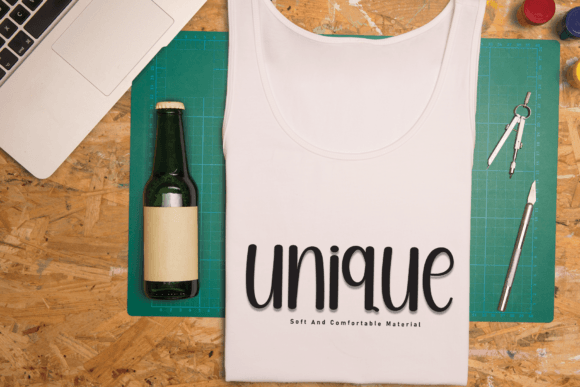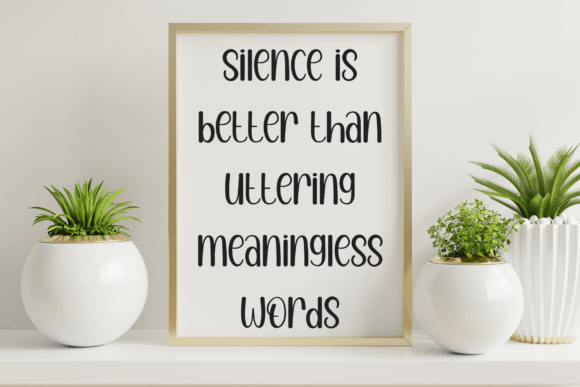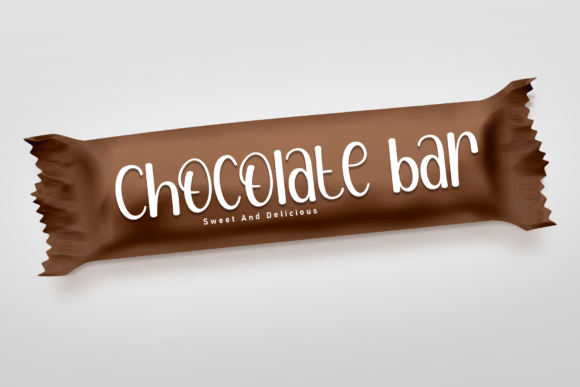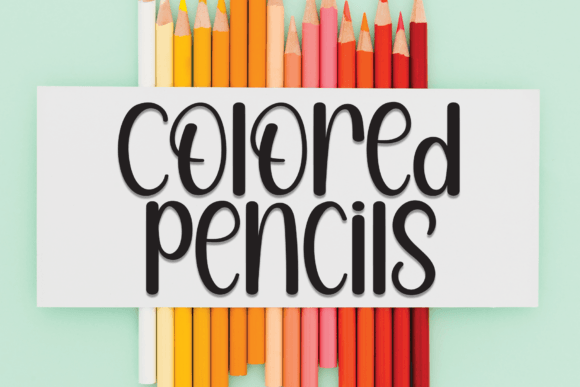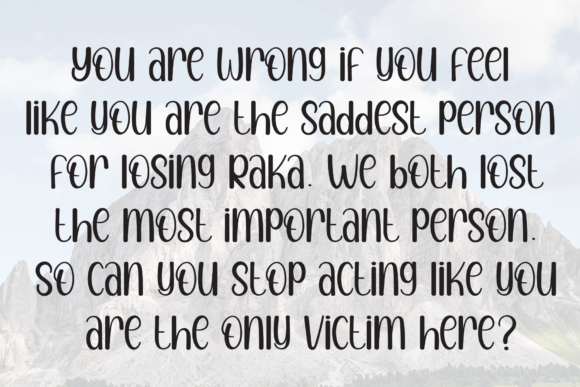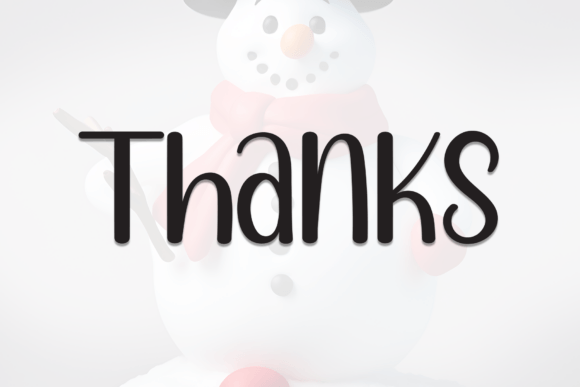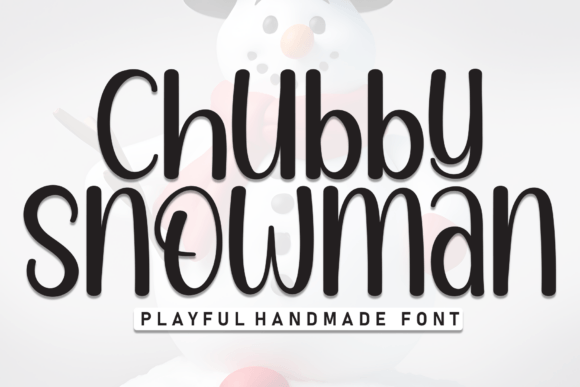
The Perfect Blend of Whimsy and Warmth
As designers, we’ve all been there – staring at a blank page, trying to capture the essence of a special moment or feeling. It’s those moments of creative inspiration that drive us to push the boundaries of what’s possible, and for many of us, it all starts with the perfect font.
Enter the Chubby Snowman Font, a charming and whimsical handwritten display font that embodies a unique blend of sweetness and amiability. This delightful font is perfect for creating exquisite wedding invites, heartfelt greeting cards, and designs that command an element of playfulness. With its fun-cut vibe, the Chubby Snowman Font adds an irresistible fun touch to your projects, making your design speak volumes about your creativity.
Chubby Snowman Font Key Features
• Unique Characteristics: The Chubby Snowman Font features a playful, whimsical design with bold lines and rounded shapes, making it perfect for winter-themed designs and children’s projects.
Designer Review: Chubby Snowman Font
As a designer, I was excited to test out the Chubby Snowman Font. Overall, it’s a cute and playful font that’s perfect for winter-themed projects or kids’ designs. ✨ Here are some things that work well:
• Unique and quirky design that stands out from more traditional fonts
• Well-suited for titles, headings, and short text snippets where its personality can shine
• Available in a variety of weights, making it easy to customize to your project’s needs
• May not be the best choice for large blocks of text, as its whimsical nature can become overwhelming
• Lack of language support for non-English languages may limit its versatility
• Some characters may not be as detailed or nuanced as you’d like, which could impact readability
Overall, the Chubby Snowman Font is a fun and creative option for designers looking to add some personality to their projects. While it may not be suitable for every use case, its unique charm and customization options make it a solid choice for the right project.
Tips for Getting the Most Out of the Chubby Snowman Font
Use the Chubby Snowman Font for festive and playful designs, such as holiday cards, party invitations, and social media graphics.
Experiment with different font sizes and colors to create a unique and eye-catching look.
Combine the Chubby Snowman Font with other festive fonts and graphics for a cohesive and holiday-themed design.
Alternatives to Chubby Snowman Font
Bangers
Bangers is a bold and playful font that is perfect for headings and titles. It has a similar feel to Chubby Snowman Font, but with a more modern and edgy twist. Use Bangers when you want to add a touch of fun and whimsy to your design.
Comparison to Chubby Snowman Font: Bangers is more condensed and has a slightly more aggressive feel, making it ideal for digital designs and bold statements.
Great Vibes is a beautiful and elegant script font that is perfect for creating a warm and inviting atmosphere. It has a softer and more refined feel compared to Chubby Snowman Font, making it ideal for designs that require a touch of sophistication.
Comparison to Chubby Snowman Font: Great Vibes is more cursive and has a more organic feel, making it perfect for designs that require a sense of movement and flow.
Playfair Display is a luxurious and elegant font that is perfect for creating high-end and sophisticated designs. It has a more refined and classic feel compared to Chubby Snowman Font, making it ideal for designs that require a touch of sophistication and elegance.
Comparison to Chubby Snowman Font: Playfair Display is more ornate and has a more traditional feel, making it perfect for designs that require a sense of luxury and refinement.
Q: What is the recommended font size for optimal readability with the Chubby Snowman Font?
The recommended font size for optimal readability with the Chubby Snowman Font is between 12pt and 24pt. However, this may vary depending on the specific application, screen resolution, and personal preference. Experiment with different font sizes to find the most comfortable and readable size for your needs.